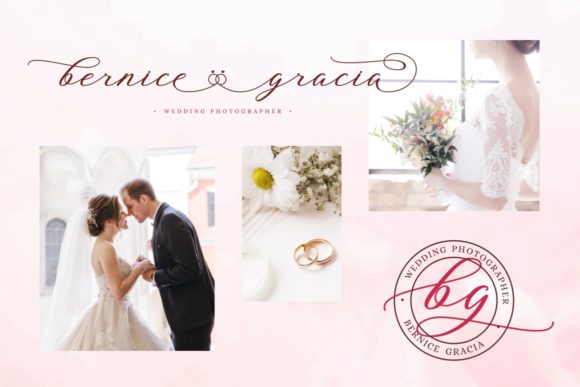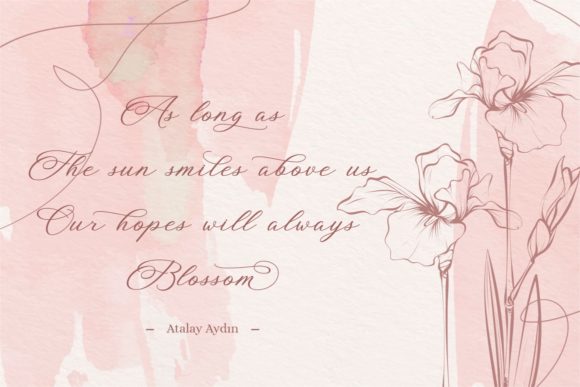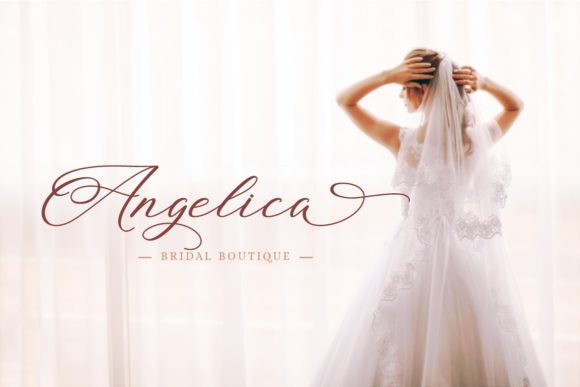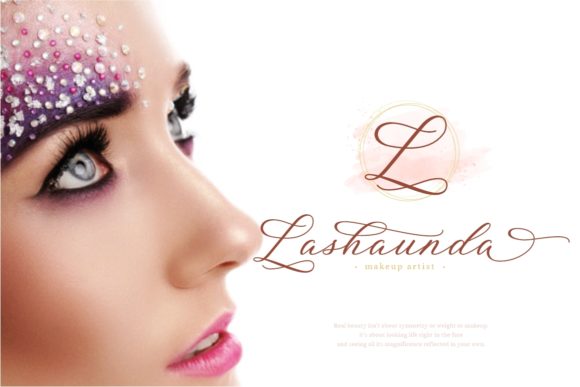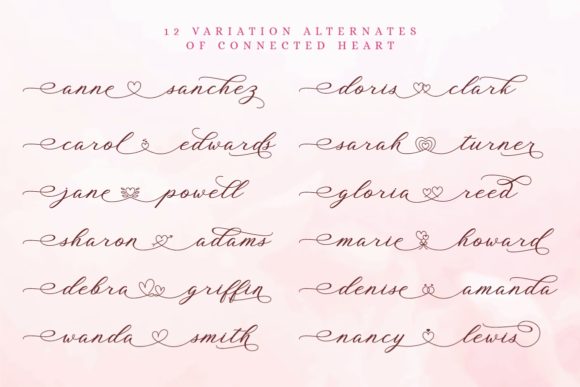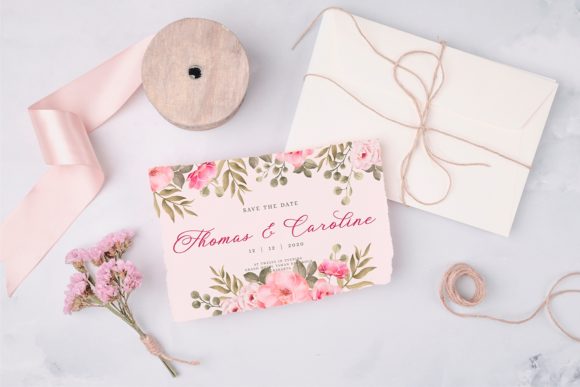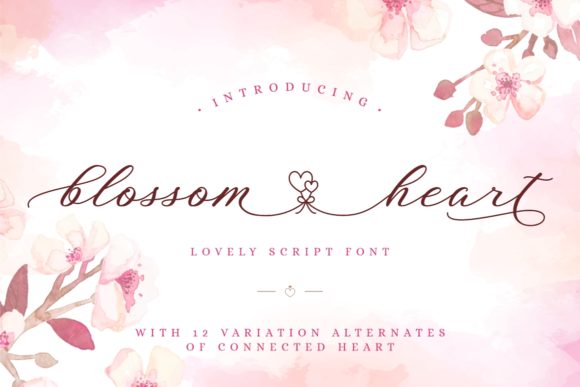
Introducing Blossom Heart Font: The Ultimate Romantic Script Font for Designers and Crafters
Are you looking for a font that can add a touch of romance and charm to your design projects? Look no further than Blossom Heart Font! This beautiful script font features tiny little hearts as ornaments, making it perfect for creating stunning and unique designs. In this article, we’ll take a closer look at Blossom Heart Font, its features, and how it can enhance the beauty of your projects.
What is Blossom Heart Font?
Blossom Heart Font is a romantic and charming script font that is designed to add a touch of elegance and sophistication to your designs. It features tiny little hearts as ornaments, which give it a playful and whimsical feel. The font is perfect for creating romantic and feminine designs, such as wedding invitations, Valentine’s Day cards, and other special occasion materials.
Key Features of Blossom Heart Font
So, what makes Blossom Heart Font so special? Here are some of its key features:
• PUA Encoded: Blossom Heart Font is PUA (Private Use Area) encoded, which means that you can access all of the glyphs and swashes with ease. This makes it easy to use the font in your designs and to create stunning and unique text effects.
• Balanced and Varied: The font is designed to be balanced and varied, with a mix of thick and thin lines that give it a natural and organic feel. This makes it perfect for creating designs that are both elegant and playful.
• Not too Thin and Not too Thick: Unlike some script fonts that can be too thin or too thick, Blossom Heart Font strikes the perfect balance. It’s not too delicate or too bold, making it easy to read and beautiful to look at.
• Tiny Little Hearts: The font features tiny little hearts as ornaments, which add a touch of romance and whimsy to your designs. These hearts can be used to create stunning text effects, such as heart-shaped swashes and glyphs.
How to Use Blossom Heart Font in Your Designs
Blossom Heart Font is perfect for designers and crafters who want to create stunning and unique designs. Here are some ideas for using the font in your projects:
• Wedding Invitations: Use Blossom Heart Font to create beautiful and romantic wedding invitations that will set the tone for the big day.
• Valentine’s Day Cards: Create stunning Valentine’s Day cards with Blossom Heart Font, featuring tiny little hearts and romantic text effects.
• Social Media Graphics: Use the font to create stunning social media graphics, such as Facebook posts and Instagram stories, that will grab the attention of your followers.
• Branding and Packaging: Blossom Heart Font is perfect for creating beautiful and unique branding and packaging designs, such as logos, labels, and product packaging.
Tips and Tricks for Getting the Most Out of Blossom Heart Font
Here are some tips and tricks for getting the most out of Blossom Heart Font:
• Experiment with Different Sizes: Try using the font in different sizes to create a range of effects, from delicate and dainty to bold and dramatic.
• Mix and Match with Other Fonts: Combine Blossom Heart Font with other fonts to create stunning and unique text effects, such as pairing it with a bold sans-serif font for a contrasting look.
• Use the Swashes and Glyphs: Take advantage of the font’s PUA encoding and use the swashes and glyphs to create stunning text effects, such as heart-shaped swashes and decorative borders.
Font Name Blossom Heart Font
In conclusion, Blossom Heart Font is a romantic and charming script font that is perfect for designers and crafters who want to add a touch of elegance and sophistication to their designs. With its PUA encoding, balanced and varied design, and tiny little hearts, this font is sure to become a favorite in your design arsenal. So why wait? Download Blossom Heart Font today and start creating stunning and unique designs that will leave a lasting impression!